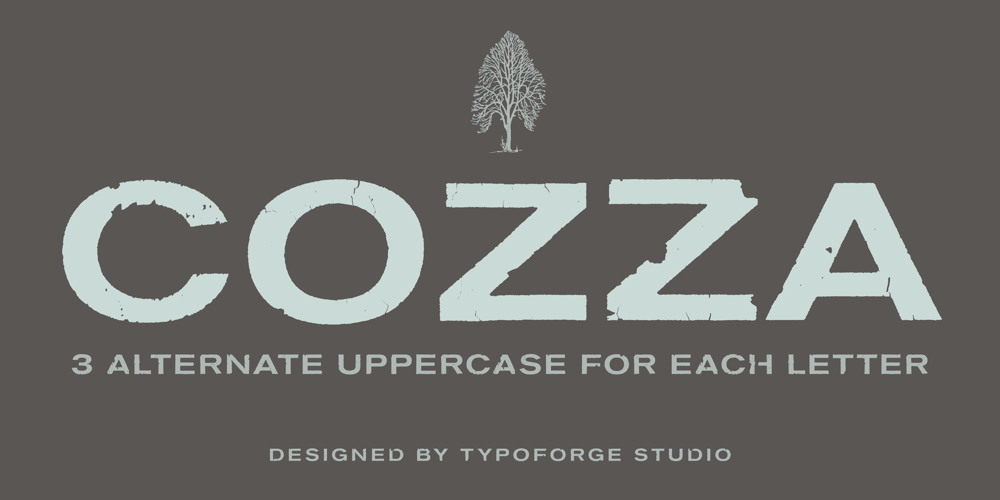
Cozza Font Family was designed by published by Typoforge Studio. Cozza contains 3 styles and family package options. The inspiration for the design of the font Cozza was Unitra Letraset from the 80s. Dry transfer lettering was used by architects from Poland and Czech Republic. Font Cozza, for each character has three alternative characters with their automatic replacement. Cozza doesn’t have lowercase but has up to three alternate uppercase for each letter.